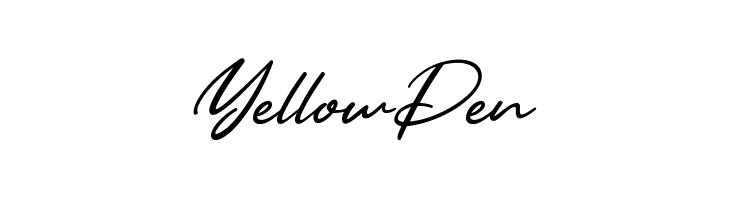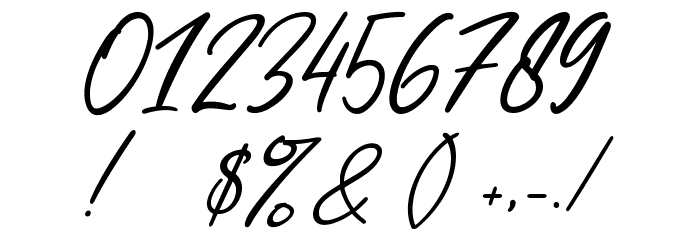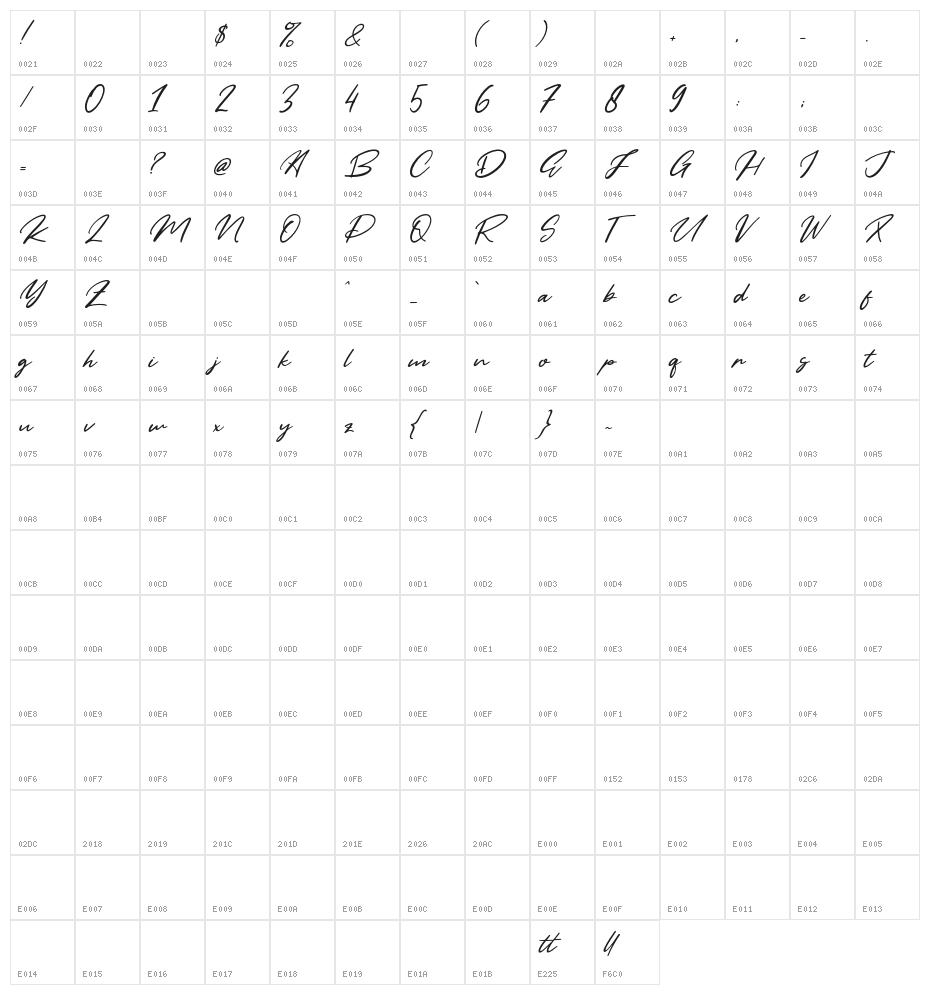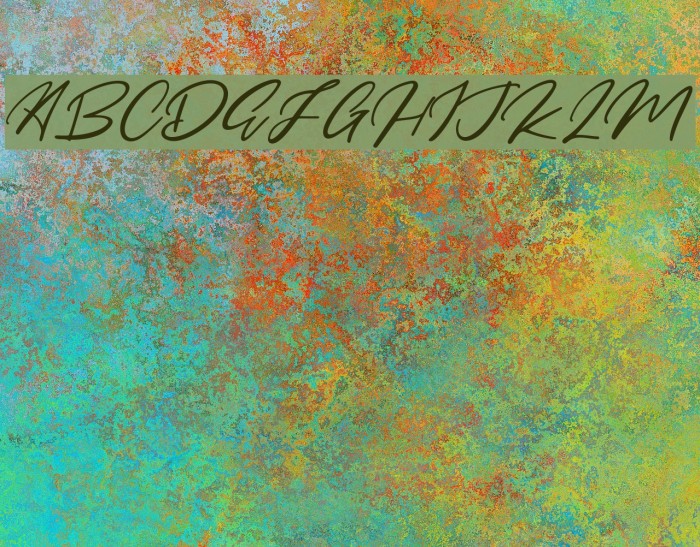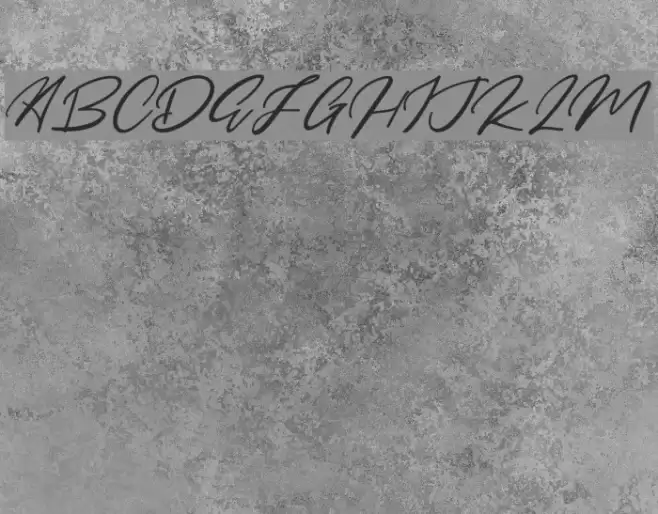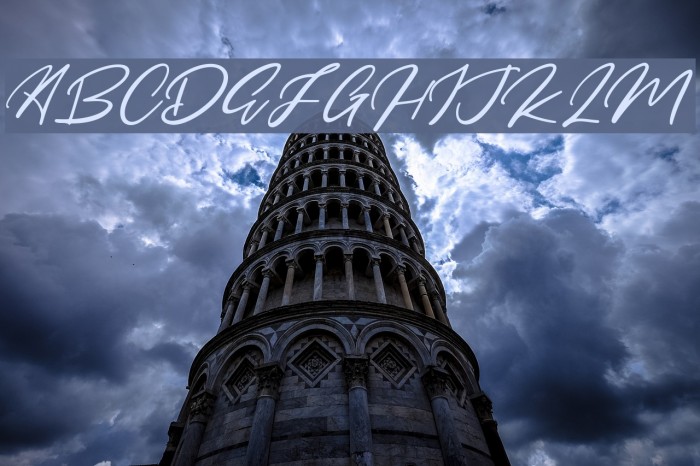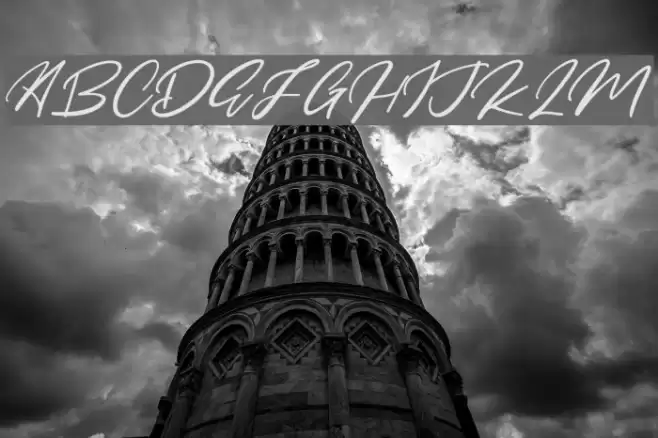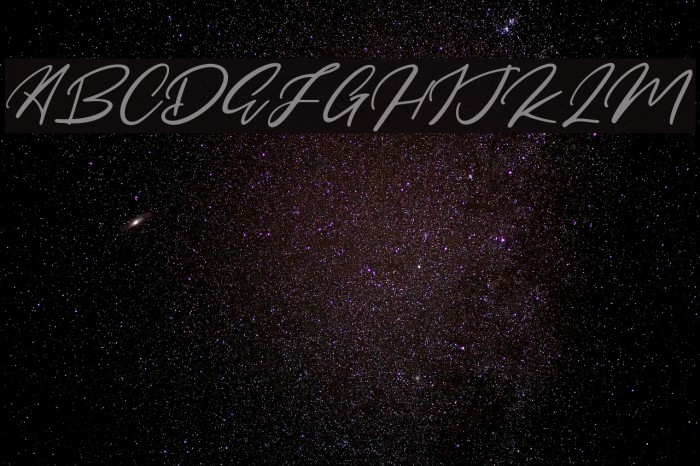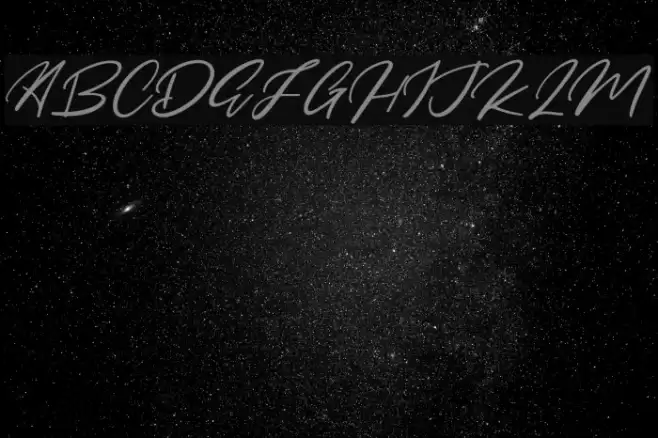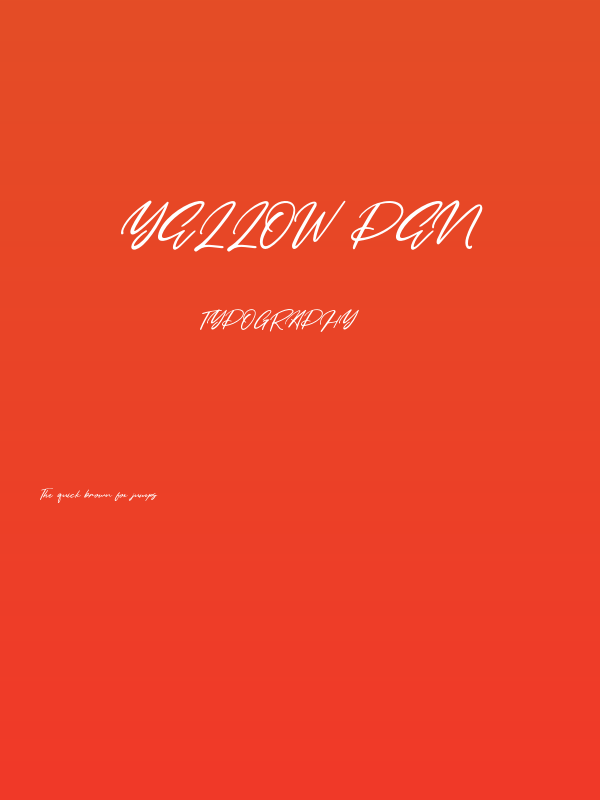
Yellow Pen Font
Yellow Pen Description
This font exudes a dynamic and fluid style, characterized by its cursive script that mimics the elegance of handwritten text. The letters are connected with smooth, flowing strokes, giving it a personal and artistic touch. The uppercase letters are bold and prominent, while the lowercase letters maintain a consistent flow, enhancing readability. The numerals and special characters are crafted with the same attention to detail, ensuring a cohesive look across all elements. This font is perfect for projects that require a personal, yet sophisticated touch.